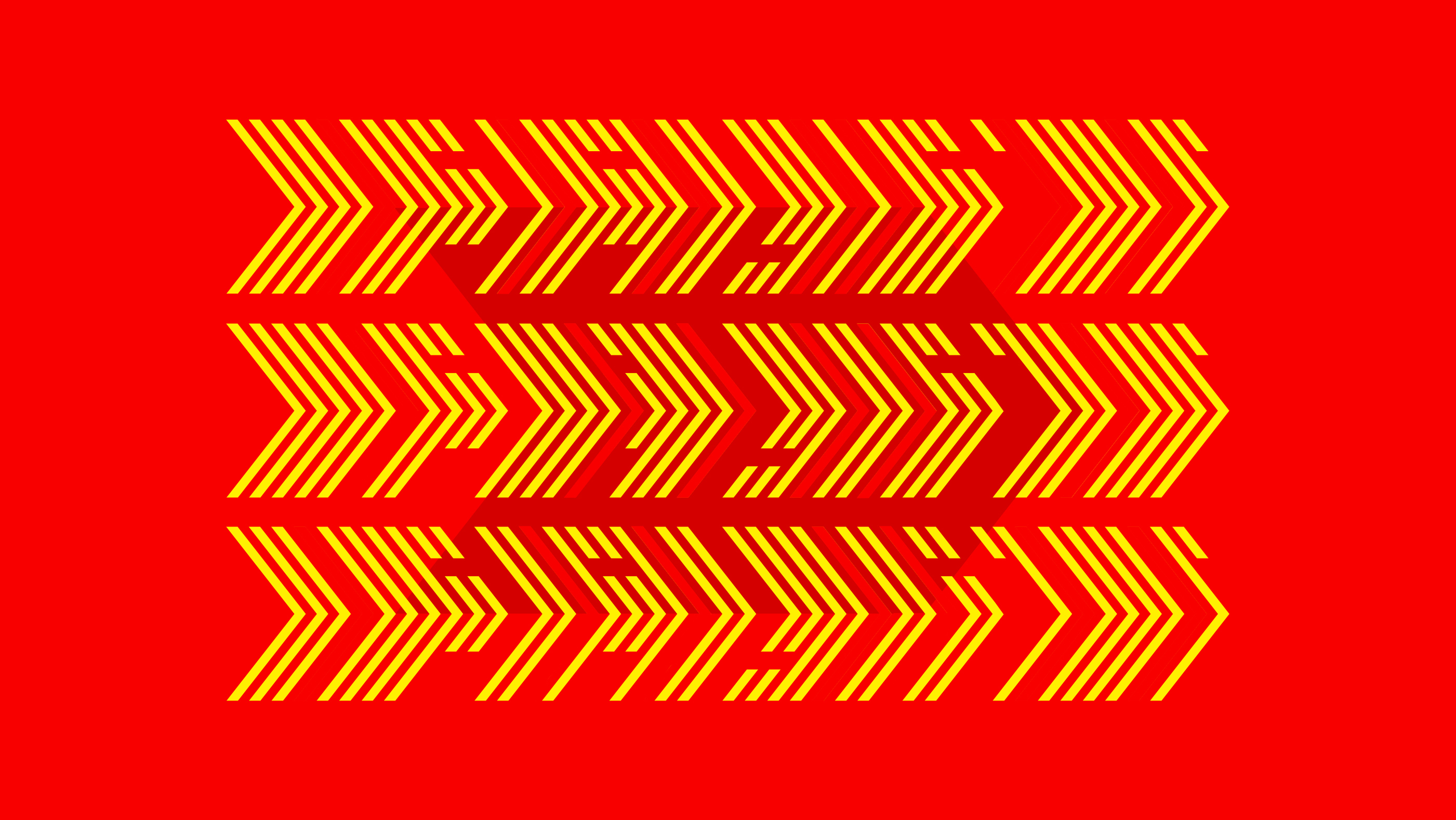
Fast
Inspired by the design of classic race cars, this lettering captures a sense of speed through the repetition of a single shape. The yellow and red color palette reinforces the racing aesthetic.